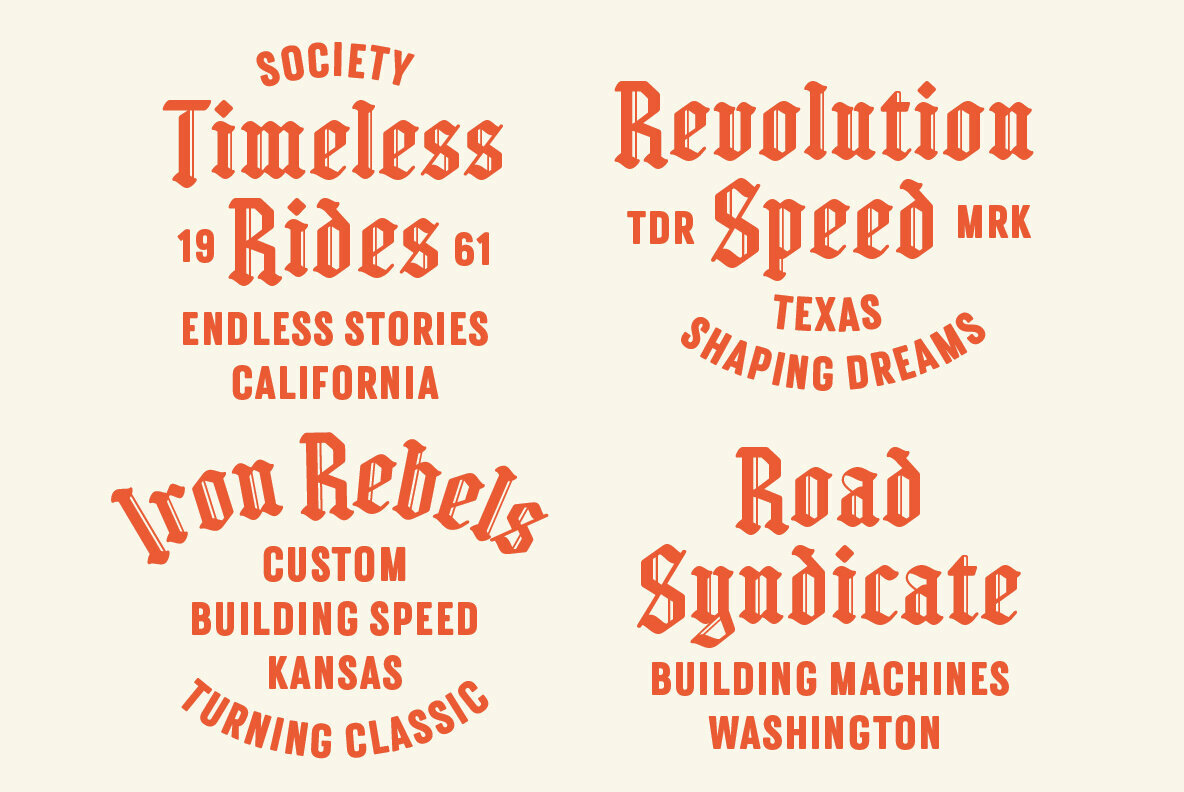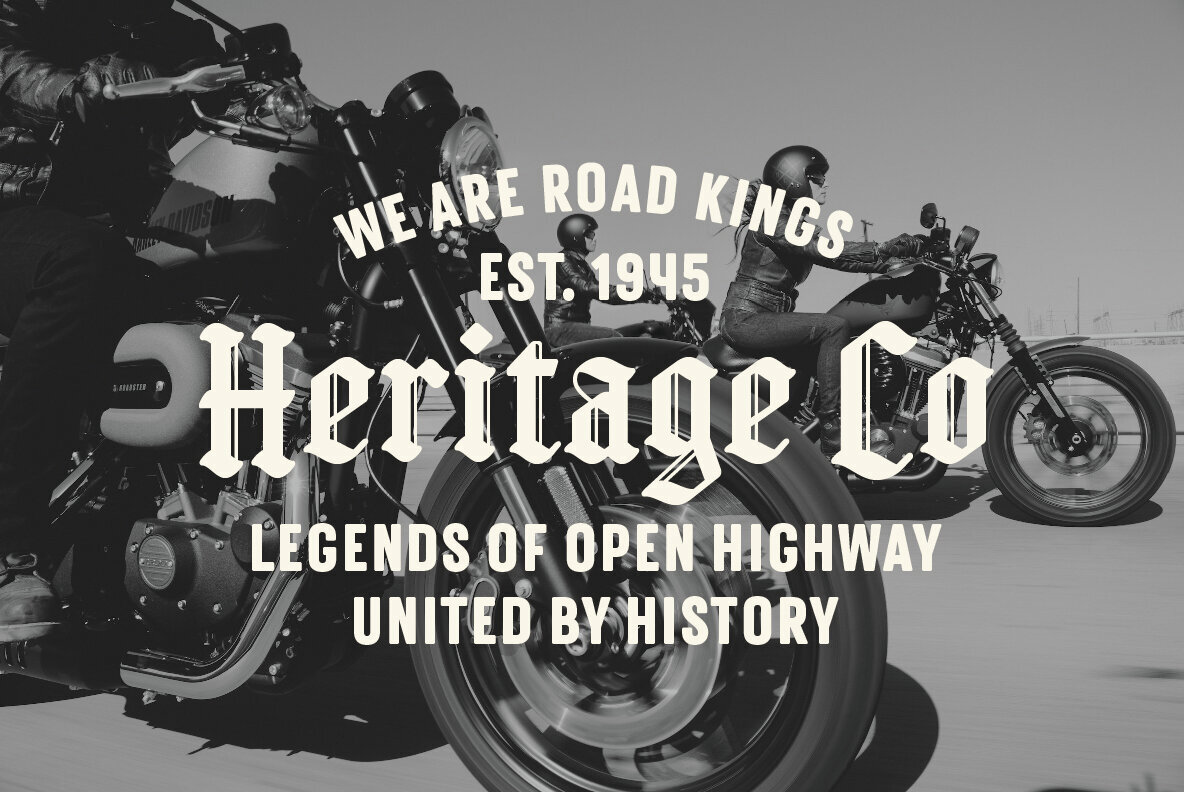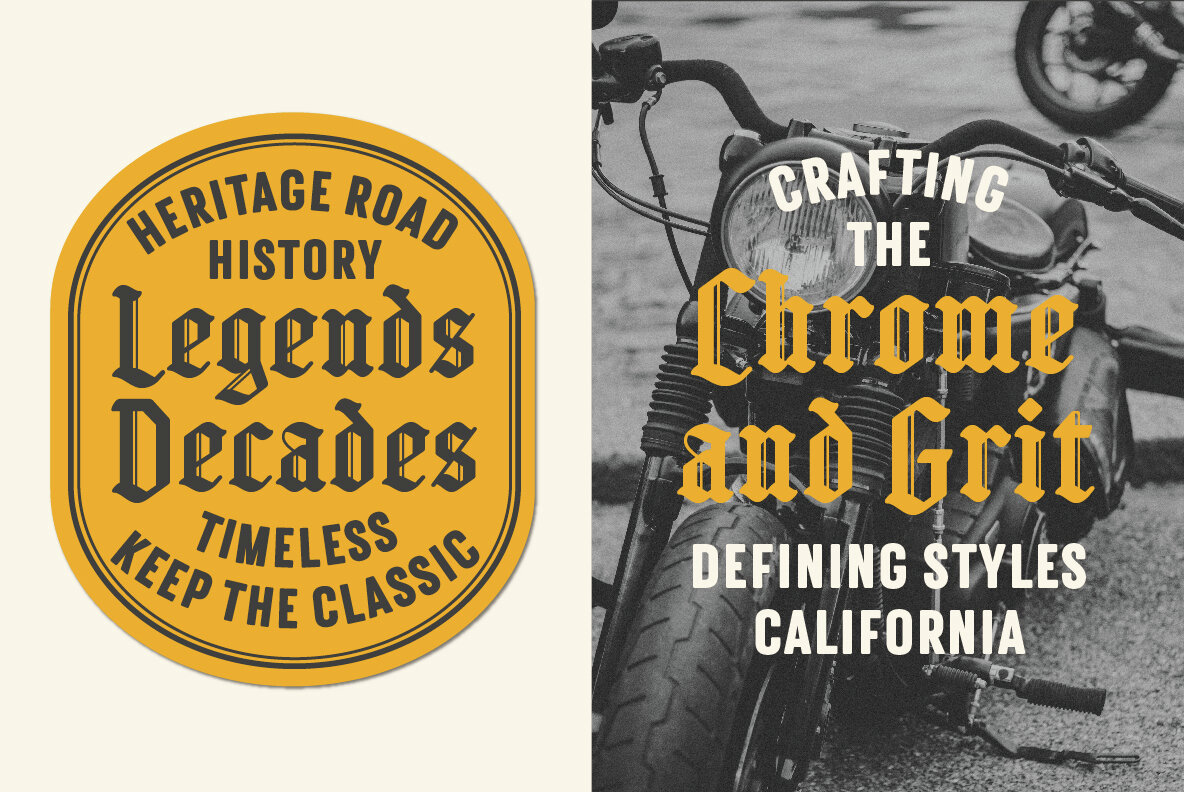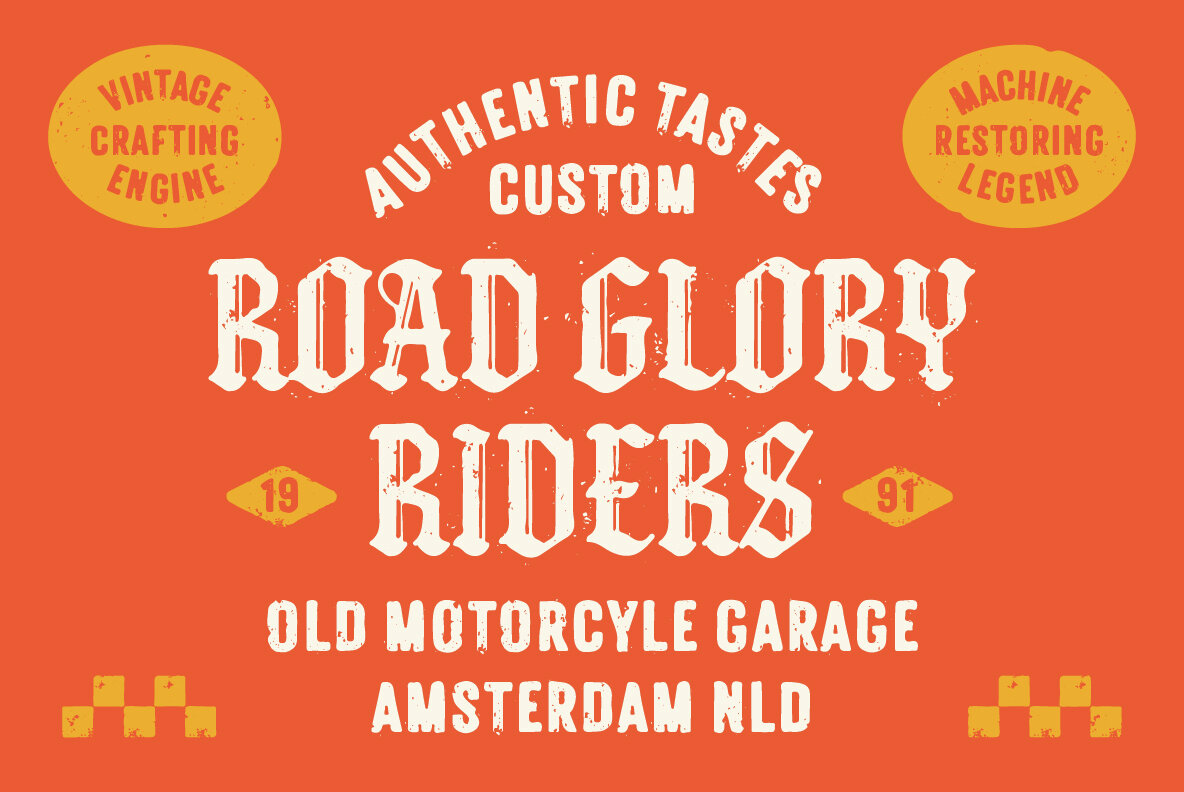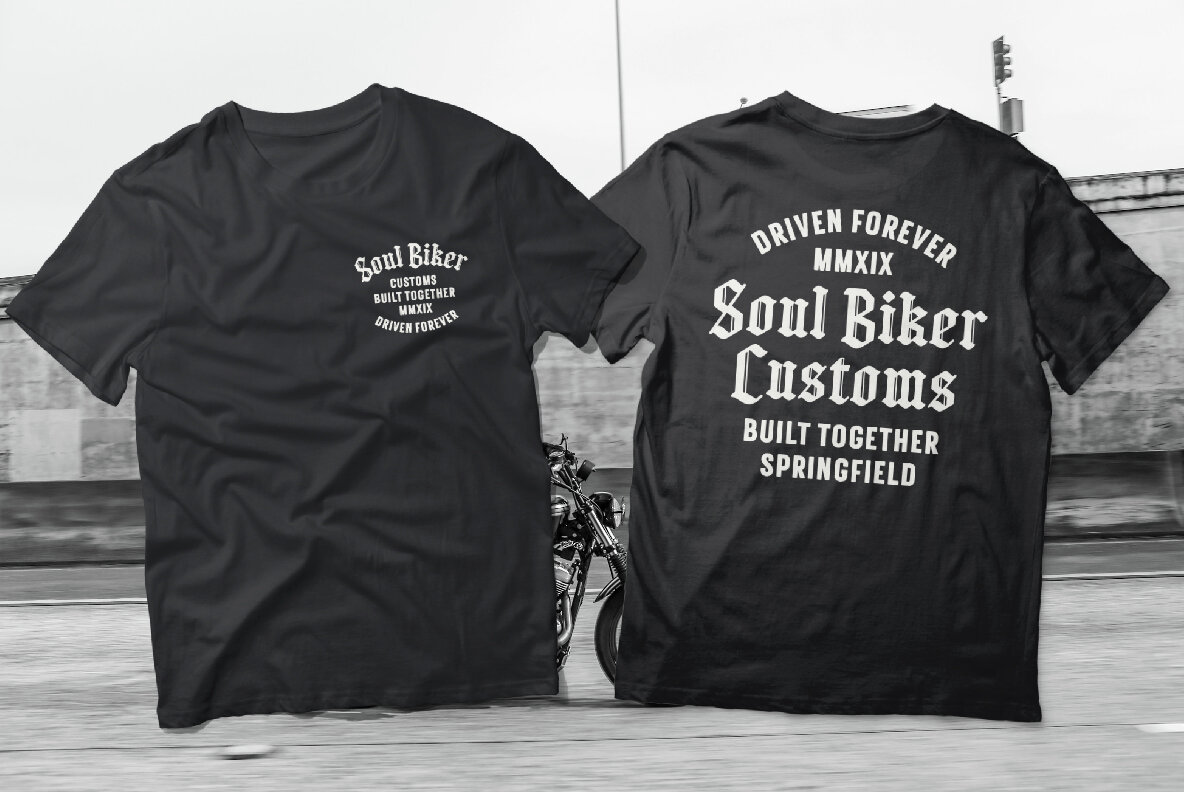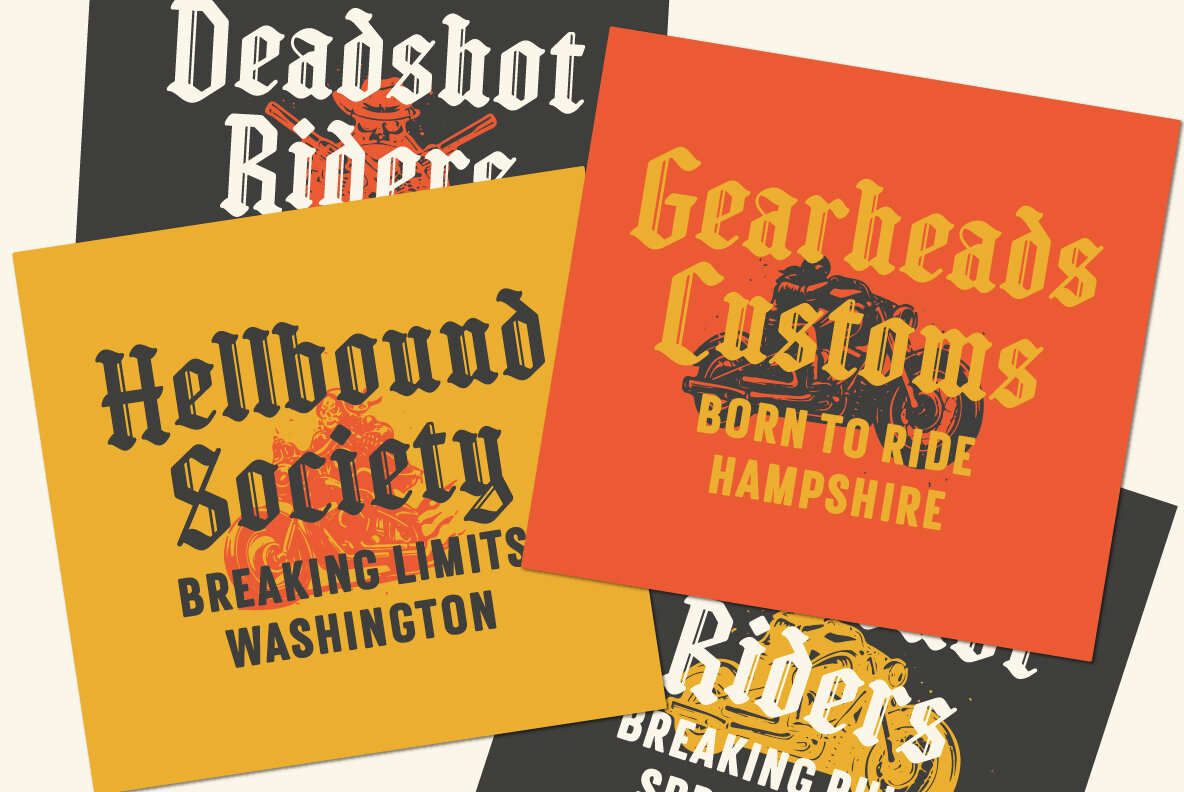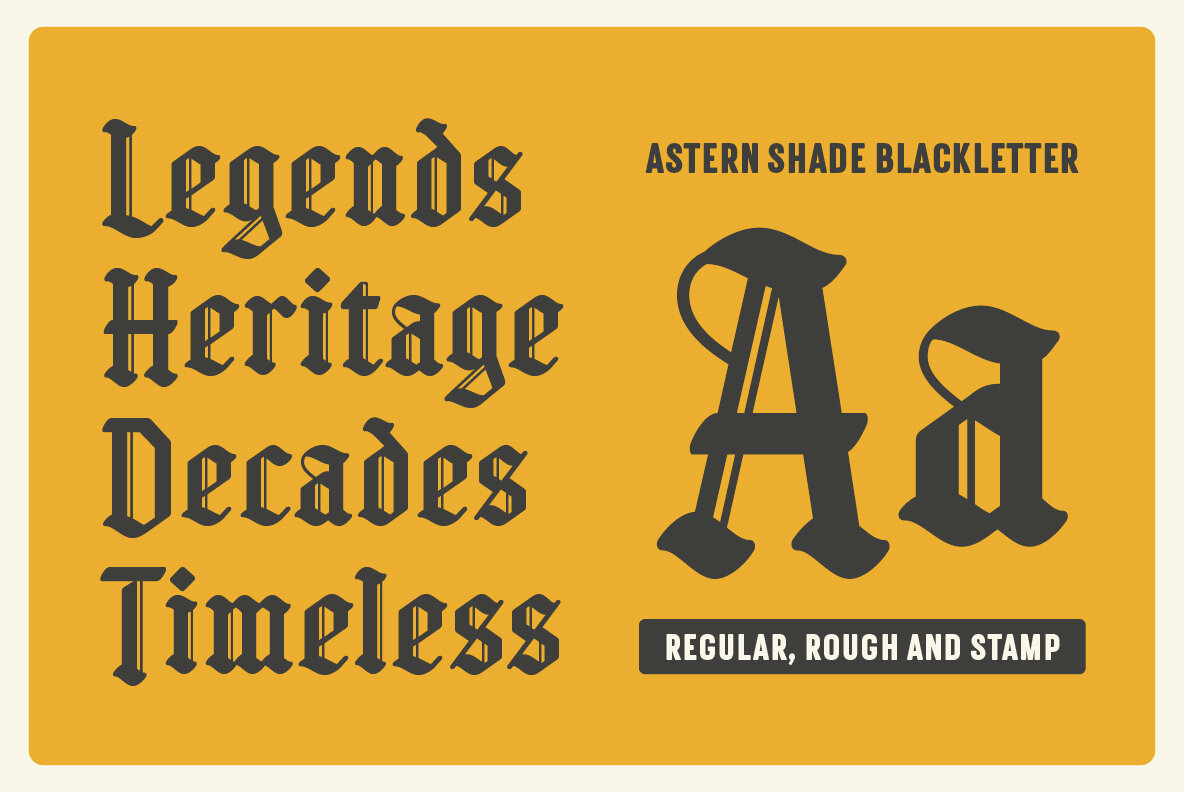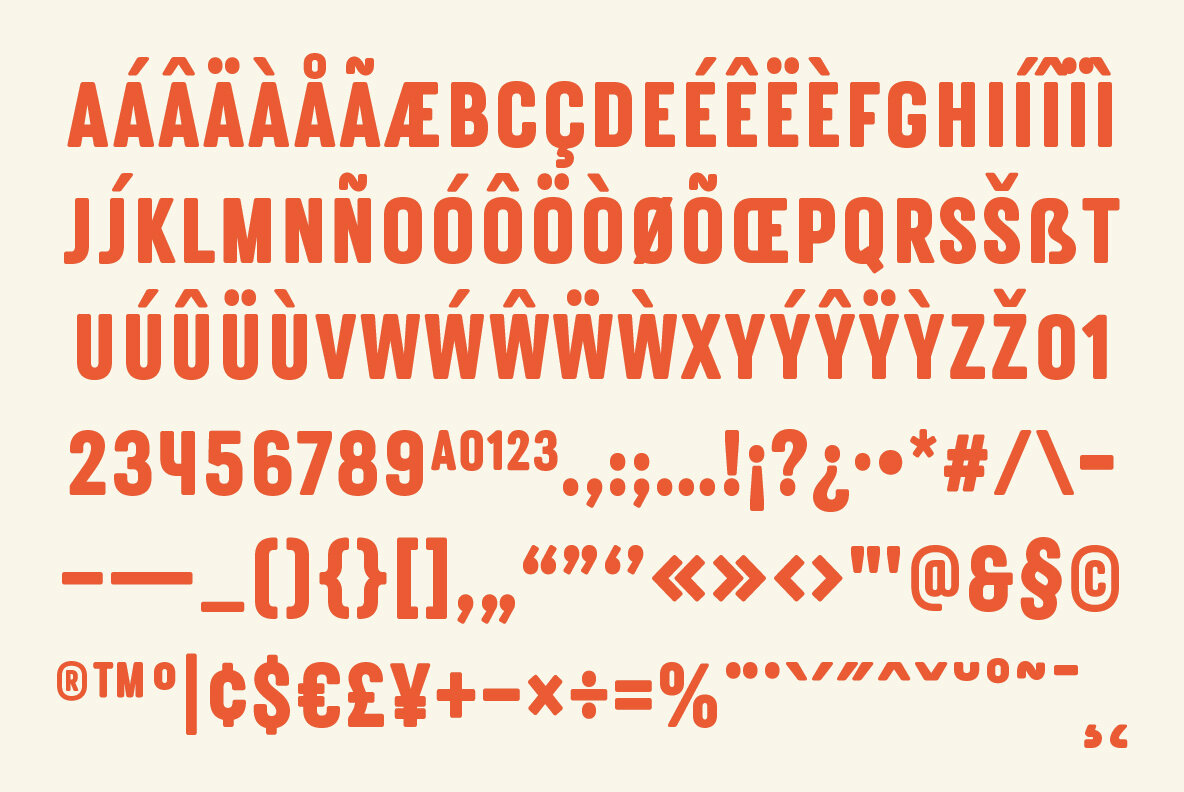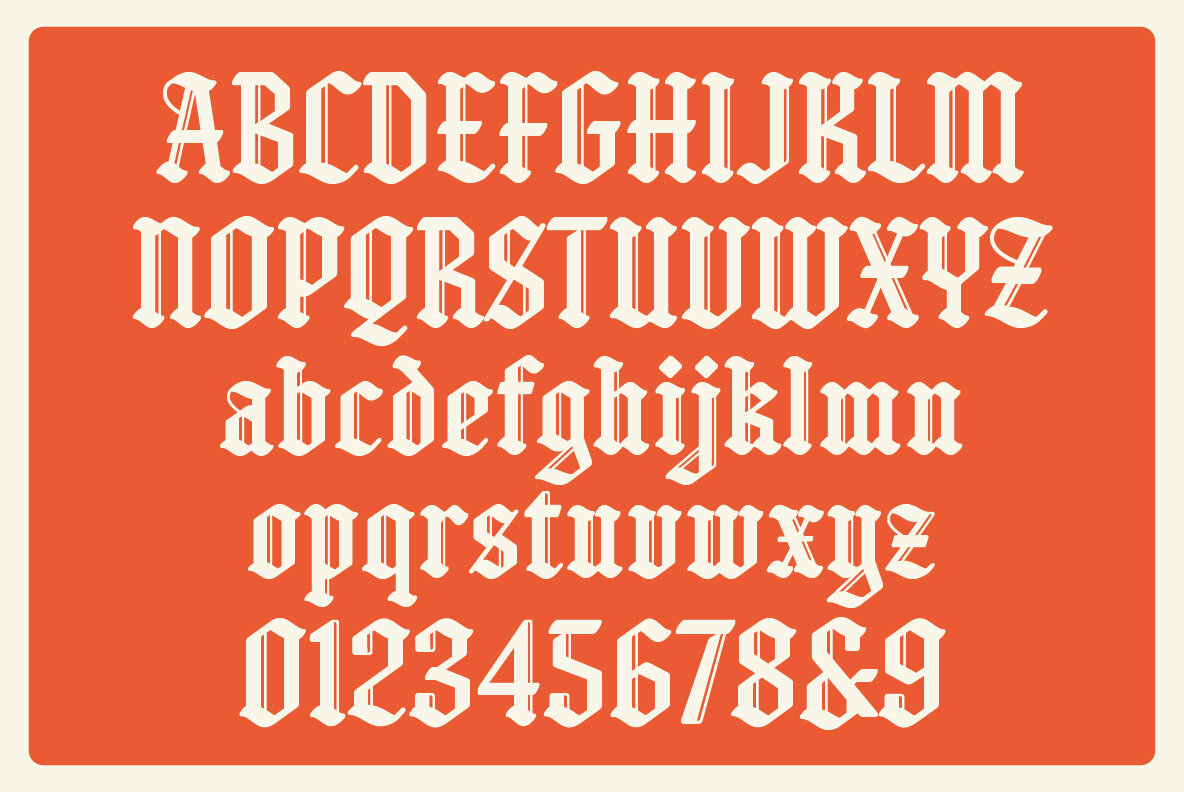
Astern Shade Font
Astern Shade Blackletter Regular
Astern Shade Sans Regular
Astern Shade Blackletter Rough
Astern Shade Blackletter Stamp
Astern Shade Sans Rough
Astern Shade Sans Stamp
Astern Shade is a dynamic font that merges the bold essence of blackletter with the clean lines of sans serif, offering a versatile design perfect for impactful visuals. This font features all-caps characters that lend a powerful aesthetic, making it ideal for logos, branding, posters, and more. With three distinct styles—regular, rough, and stamp—Astern Shade provides a myriad of creative possibilities, particularly for retro or motorcycle-themed projects seeking a vintage appeal.
Key features of Astern Shade include six distinct fonts encompassing both blackletter and sans serif styles. The blackletter variant offers uppercase, lowercase, numerals, symbols, and punctuation, while its sans serif counterpart provides all-caps with numeral, symbol, and punctuation support. Additionally, Astern Shade is multilingual and PUA encoded, ensuring accessibility and ease of use across various design platforms.